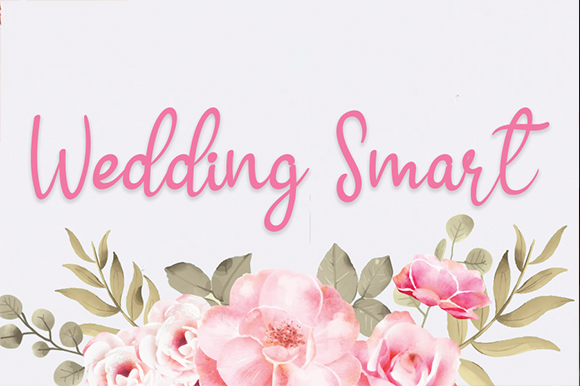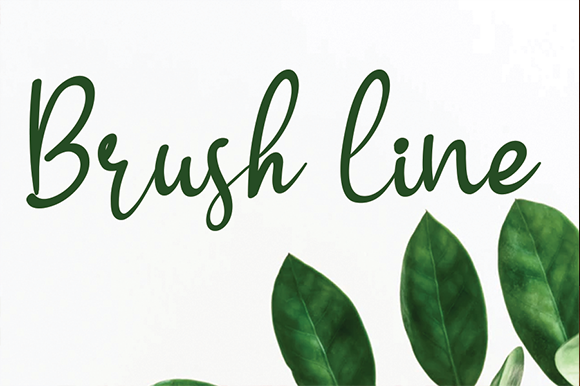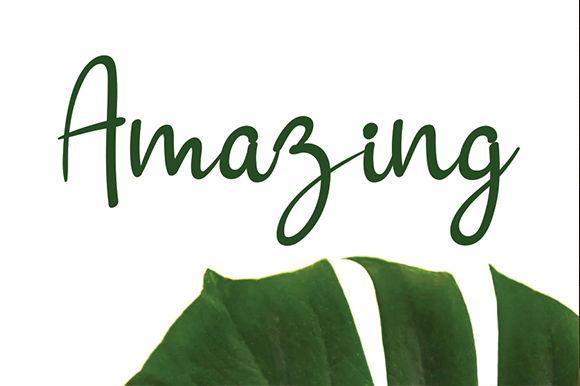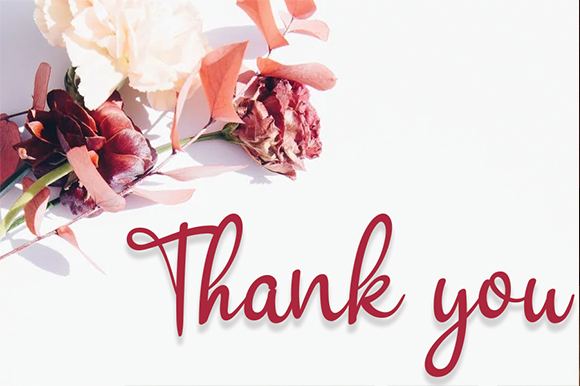
Ayuku Love Font: The Ultimate Choice for Creative Expression
Are you a designer, crafter, or DIY enthusiast looking for a font that can add a personal touch to your creative projects? Look no further than the Ayuku Love Font, a cute and casual handwritten font that exudes warmth and friendliness. In this article, we’ll explore the features and benefits of Ayuku Love, and how it can elevate your designs and crafts to the next level.
What is Ayuku Love Font?
Ayuku Love is a carefully crafted handwritten font that boasts an incredibly friendly feel. Its casual and approachable style makes it perfect for a wide range of creative applications, from social media graphics and Instagram posts to calligraphy scripts and DIY projects. With Ayuku Love, you can add a touch of personality and whimsy to your designs, making them stand out from the crowd.
Key Features of Ayuku Love Font
- Cute and Casual Style: Ayuku Love features a playful and informal design that’s perfect for creating friendly and approachable content.
- Handwritten with Love: The font’s handwritten style gives it a personal and emotive feel, making it ideal for projects that require a touch of warmth and sincerity.
- Versatile and Adaptable: Ayuku Love can be used for a wide range of creative projects, from digital designs to handmade crafts.
- Easy to Read: The font’s clear and legible design ensures that your message is conveyed clearly and effectively.
Ayuku Love is an excellent choice for designers and crafters who want to add a personal touch to their work. Whether you’re creating social media graphics, blog posts, or handmade crafts, this font will help you connect with your audience and convey your message in a friendly and approachable way.
Use Cases for Ayuku Love Font
- Instagram and Social Media Graphics: Add a touch of personality to your Instagram posts and social media graphics with Ayuku Love.
- Calligraphy Scripts: Use Ayuku Love to create beautiful calligraphy scripts for DIY projects, such as wedding invitations, greeting cards, and gift tags.
- DIY Crafts: Add a personal touch to your DIY crafts, such as handmade cards, gift boxes, and journal pages.
- Branding and Packaging: Use Ayuku Love to create friendly and approachable branding and packaging designs that connect with your audience.
Tips for Using Ayuku Love Font
- Experiment with Colors: Pair Ayuku Love with a range of colors to create visually appealing designs that pop.
- Mix and Match Fonts: Combine Ayuku Love with other fonts to create interesting and dynamic typography.
- Pay Attention to Spacing: Adjust the spacing between letters and words to create a clear and legible design.
Ayuku Love Font is a versatile and charming handwritten font that’s perfect for designers, crafters, and DIY enthusiasts. Its friendly and approachable style makes it ideal for a wide range of creative applications, from social media graphics to calligraphy scripts and DIY projects. With Ayuku Love, you can add a personal touch to your designs and crafts, and connect with your audience in a meaningful way.